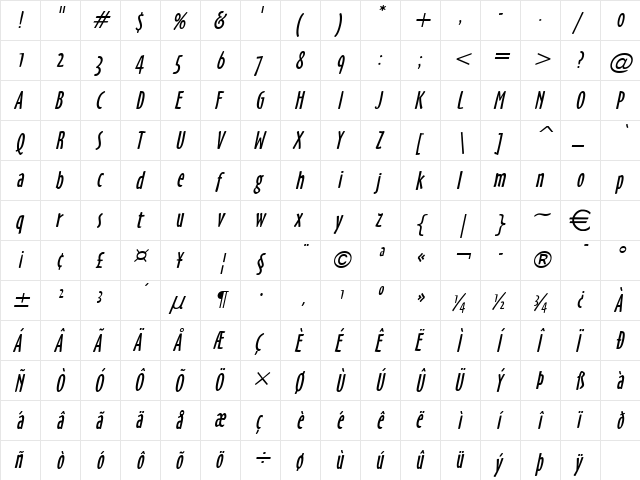
Hobby Italic
Design Context for Hobby Typeface
Hobby offers clean, dependable letterforms without strong stylistic allegiance, making it a practical choice for designers who need flexibility. Its italic angle brings a sense of urgency and motion to the letterforms.
Pro Tip: Use Hobby for emphasis, pull quotes, and subheadings where its slanted energy can add rhythm to the layout.